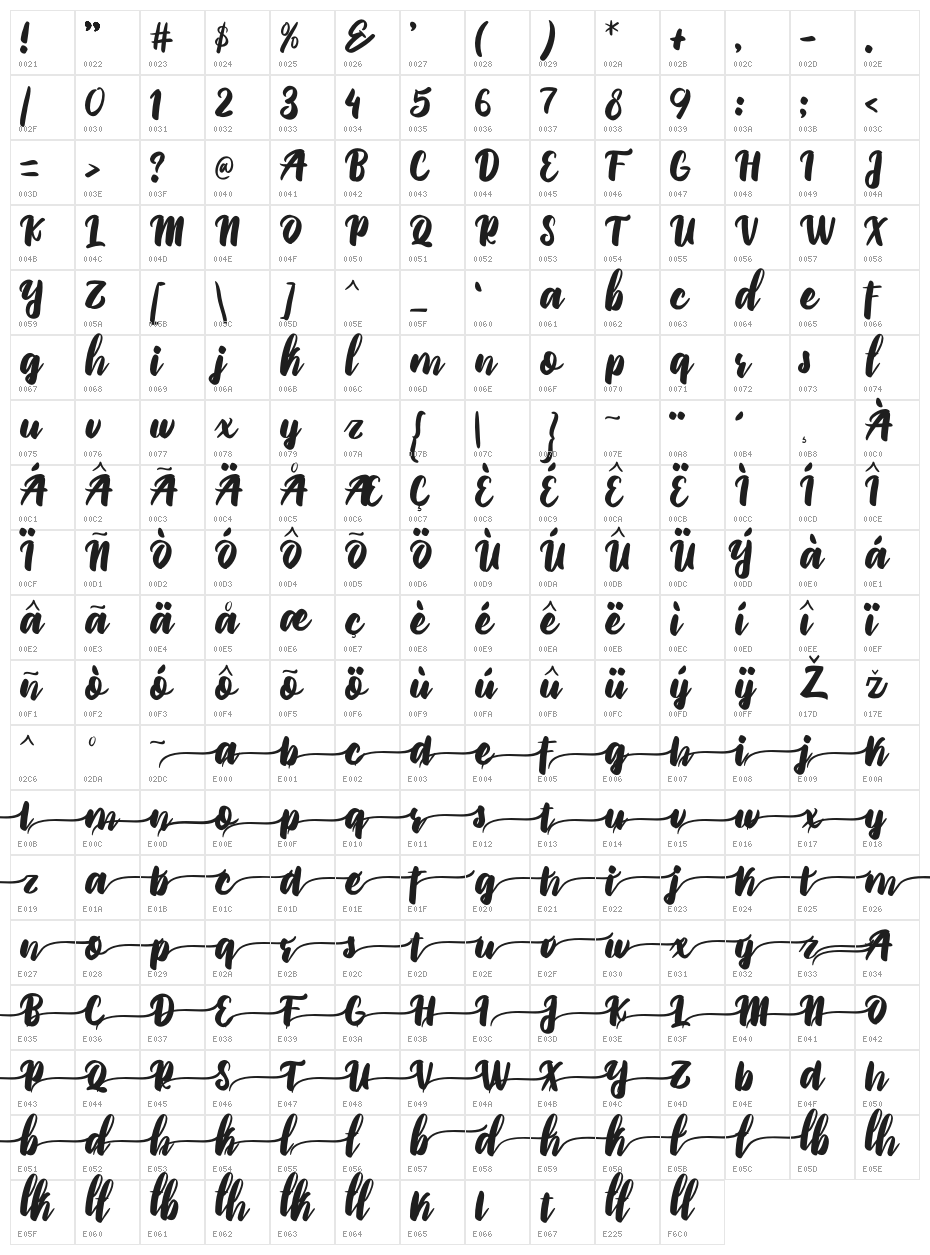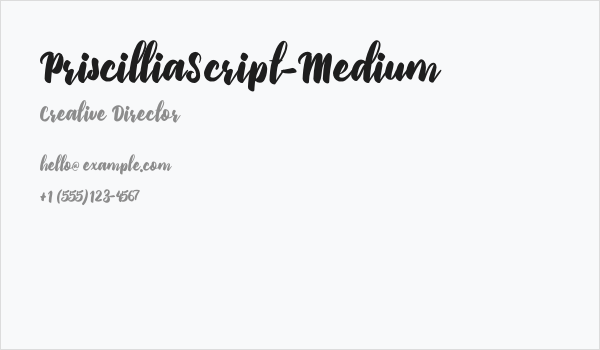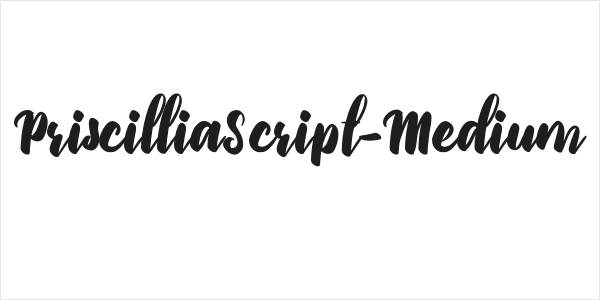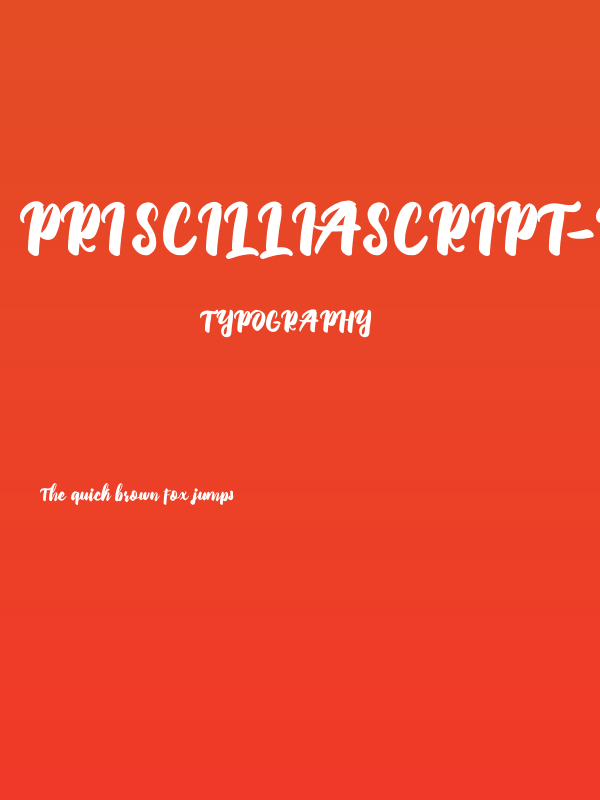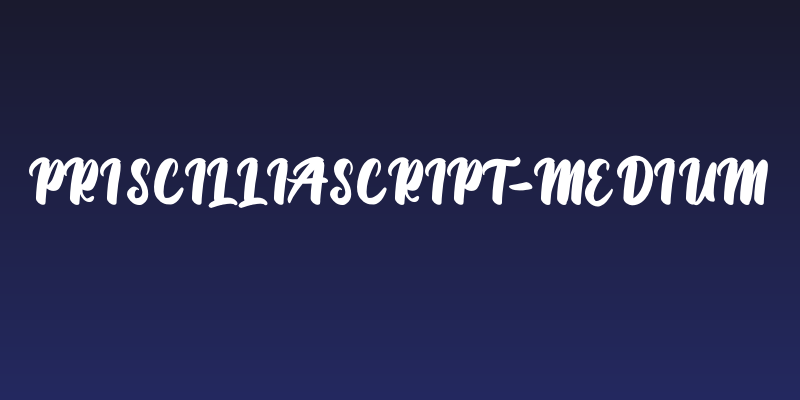
PriscilliaScript-Medium Font
PriscilliaScript-Medium Description
This font exudes a lively and dynamic energy, characterized by its bold and flowing script style. The letters are crafted with a sense of movement, featuring smooth curves and elegant loops that give it a handwritten appearance. The uppercase letters maintain a consistent height, while the lowercase letters offer a playful variation in size and form. The numerals are equally expressive, with a bold presence that complements the overall style. Special characters are designed with the same attention to detail, ensuring a cohesive look across all elements. This font is perfect for projects that require a personal touch, such as invitations, greeting cards, or branding materials that aim to convey warmth and creativity.
| Use Case | Logos, Headlines, Invitations |
| Proposed Projects | Ideal for invitations, greeting cards, branding, and creative projects. |